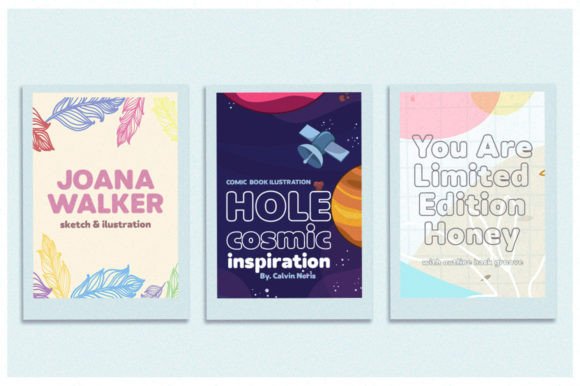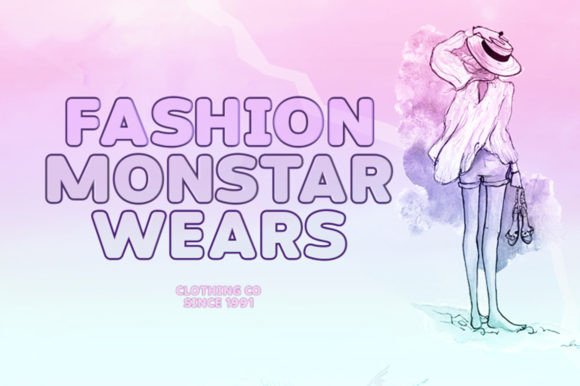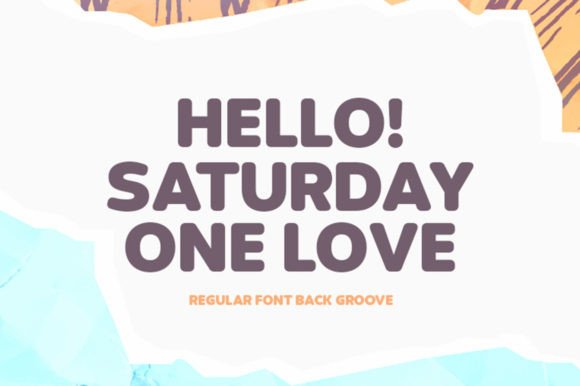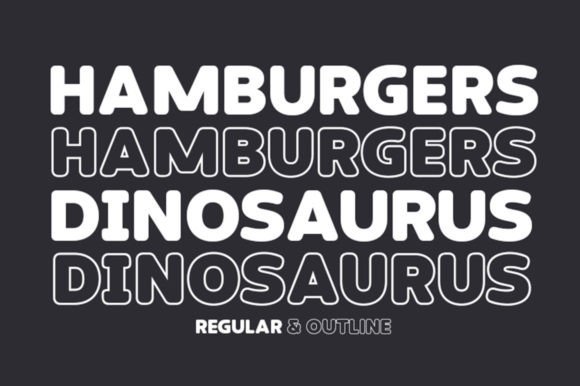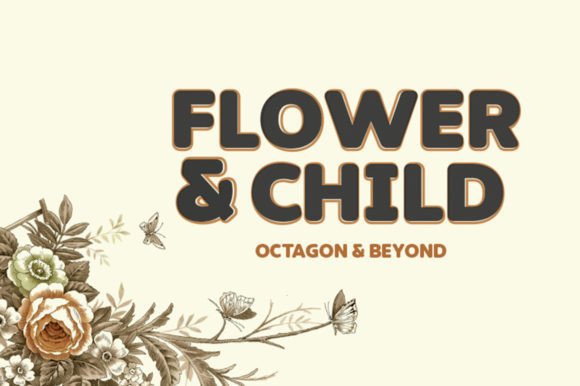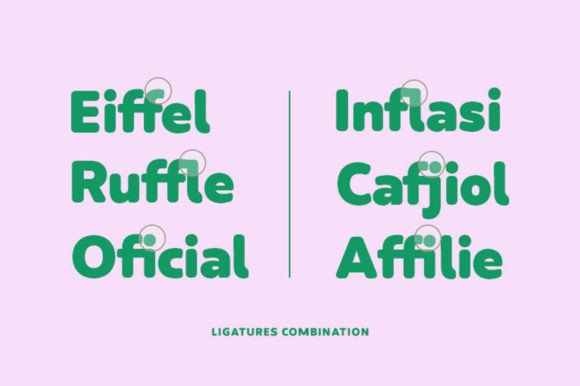
Discover the Elegance of Back Groove Font
Have you ever stumbled upon a font that perfectly captures the essence of a vintage aesthetic, yet feels refreshingly modern? For designers, that moment of serendipity is a treasure trove of inspiration, and we’re excited to share it with you. Introducing the Back Groove Font, a beautiful release that’s been making waves in the design community.
This exquisite font is not just a pretty face; it’s a versatile tool that can elevate your next project from ordinary to extraordinary. With its smooth lines, pinpoint accuracy, and perfect simplicity, the Back Groove Font is the perfect choice for designers looking to add a touch of elegance to their work. Whether it’s a logo, invitation, or home decor project, this font is sure to impress.
So why is the Back Groove Font so valuable for designers? For one, it offers a unique blend of vintage and modern styles that’s hard to find in other fonts. Its compact, alternative combinations make it perfect for celebrating special occasions, and its precision is unmatched.
Key Features of Back Groove Font
- Font Family: Back Groove Font is a sans-serif font family, designed to provide a clean and modern look for digital and print media.
- Size: Back Groove Font family consists of 6 weights, ranging from Light to Black, allowing for flexibility in font size and style.
- Unique Characteristics: The font features a distinctive, rounded design with subtle rounded edges and a friendly feel, making it suitable for various design applications.
Back Groove Font Review
I recently had the chance to work with the Back Groove Font, and I wanted to share my honest thoughts on this stylish font.
- ✨ Unique and modern design: The Back Groove Font has a distinct style that sets it apart from more traditional fonts. Its bold, rounded edges and interesting typography make it perfect for creating eye-catching headlines.
- ✨ Wide range of applications: This font is versatile and can be used for various projects, from web design to print materials, and even logos.
- ✨ Smooth and legible: Despite its unique design, the font is still easy to read, making it suitable for body text as well.
- ⚠️ Limited language support: Unfortunately, the Back Groove Font only supports Latin-based languages, which may limit its use for projects requiring other languages.
- ⚠️ Not ideal for small text: While the font is legible, it may not be the best choice for small text sizes, as its bold design can become overwhelming.
The Back Groove Font is a solid choice for designers looking for a unique and modern style. While it may have some limitations, its versatility and ease of use make it a valuable addition to any design project.
The Back Groove font is ideal for creative and artistic projects, such as:
- Music posters and flyers
- Graphic novels and comics
- Artistic typography and lettering